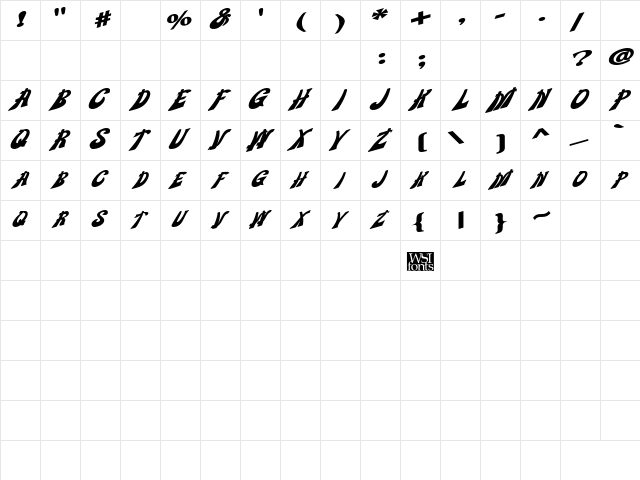
WankleDisplayCaps Bold
Design Context for WankleDisplayCaps Typeface
WankleDisplayCaps is built around its visual character rather than neutral utility — its distinctive forms are designed to make an impression at display sizes. The heavy weight commands attention and anchors typographic hierarchies.
Font Pairing: Pair with a clean neutral sans-serif for body copy to let WankleDisplayCaps's character lead without overwhelming the composition.
Pro Tip: Use WankleDisplayCaps exclusively at display sizes — it was designed to be seen, not read at length. Let a neutral companion handle body copy.